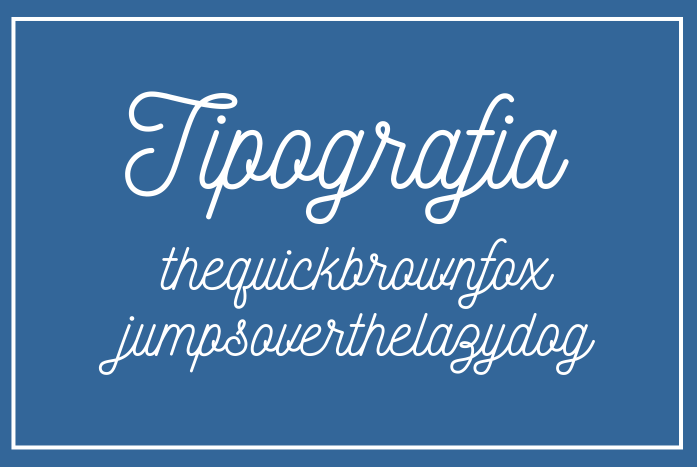
Font name: | Nickainley |
Author: | Seniors Studio |
Note by Seniors Studio | |
Nickainley is a monoline script handwriting font with a touch of classic and vintage in uppercase, lowercase characters, numeral and punctuation. Can be used for various purposes such as logos, badges, wedding invitations, t-shirts, letterhead, signage, labels, news, posters, badges etc. Designed by Seniors Studio: https://www.behance.net/seniorsstudio License: Free for Personal and Commercial use |